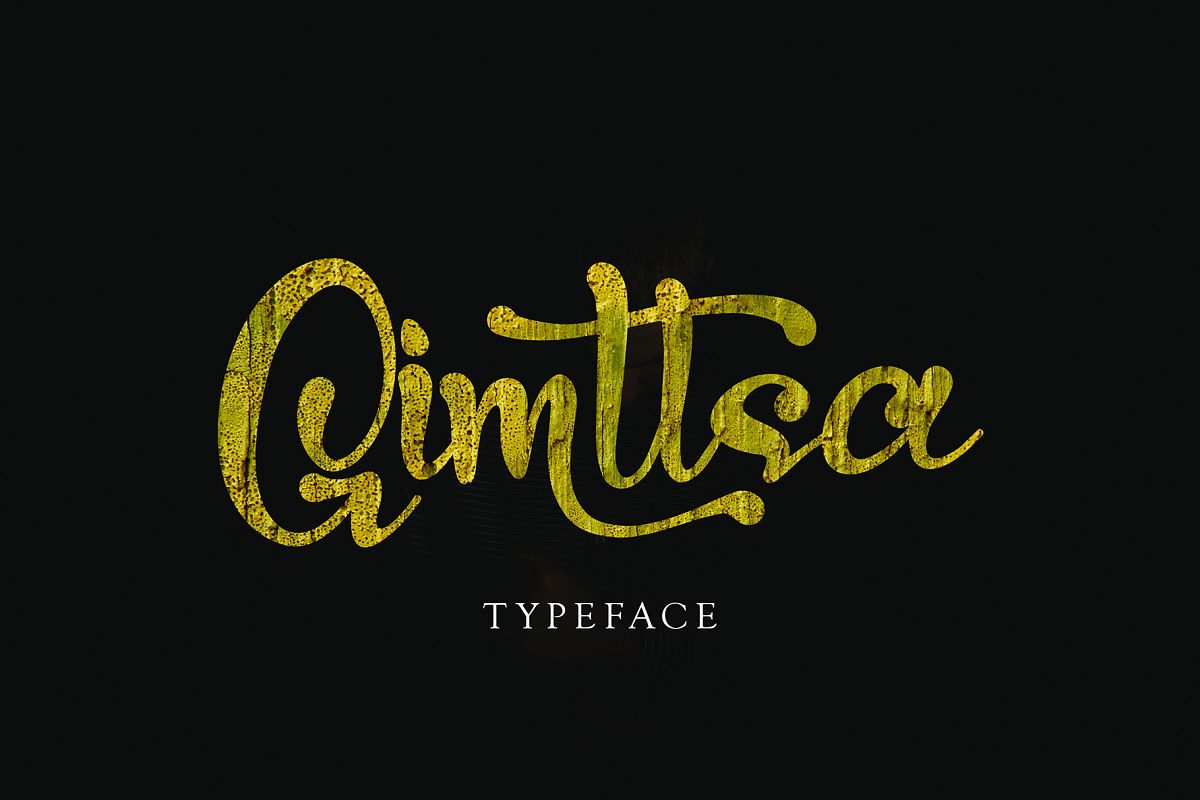
Gimttsa
Gimttsa font with new style handwritten logotype, this font will perfect for many different project ex: quotes, logo, blog header, poster, banding, fashion, apparel, letter, invitation, stationery, etc...